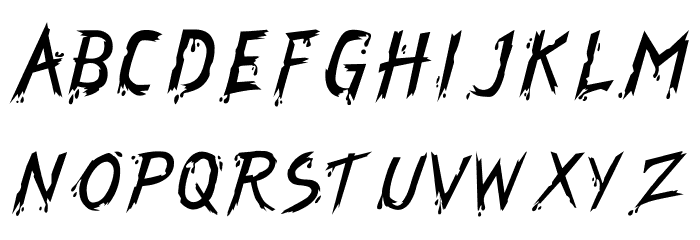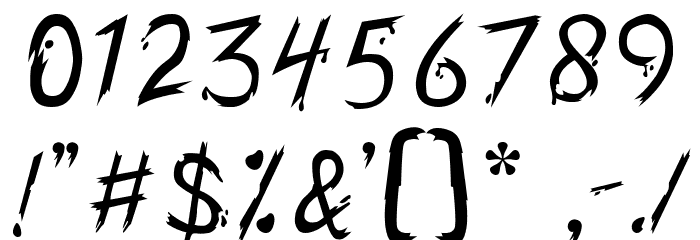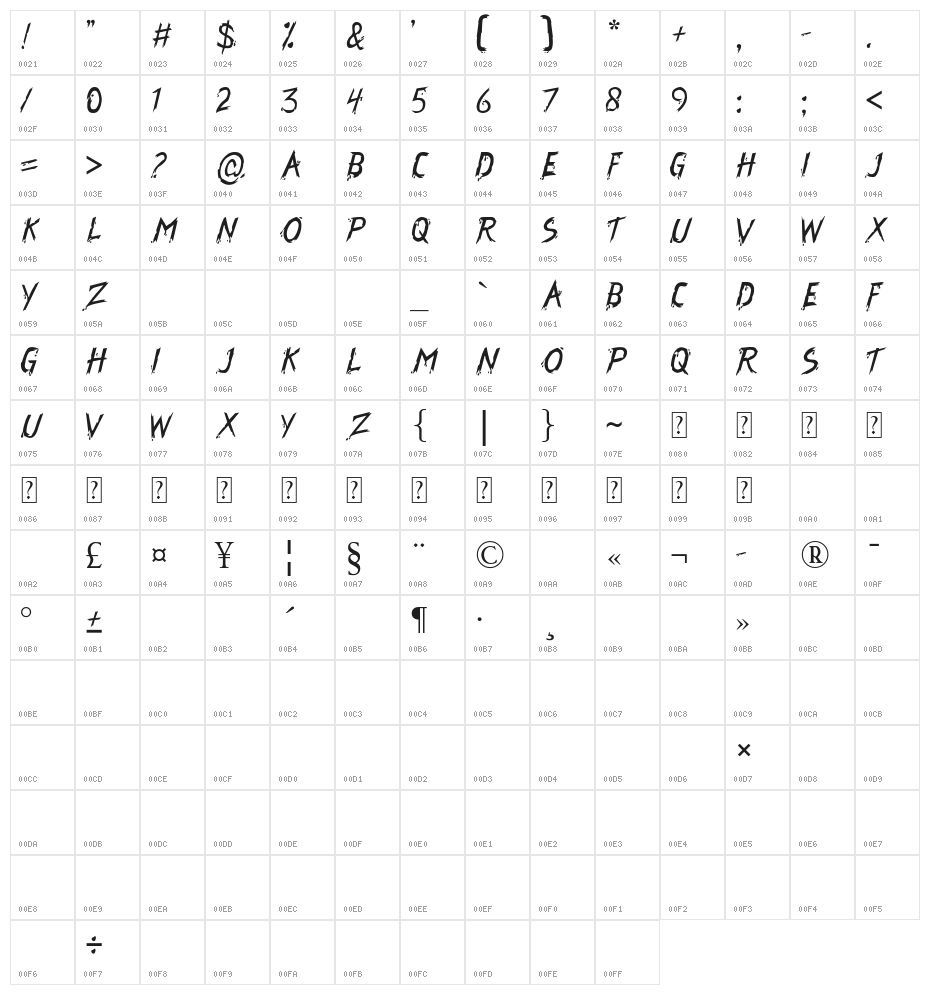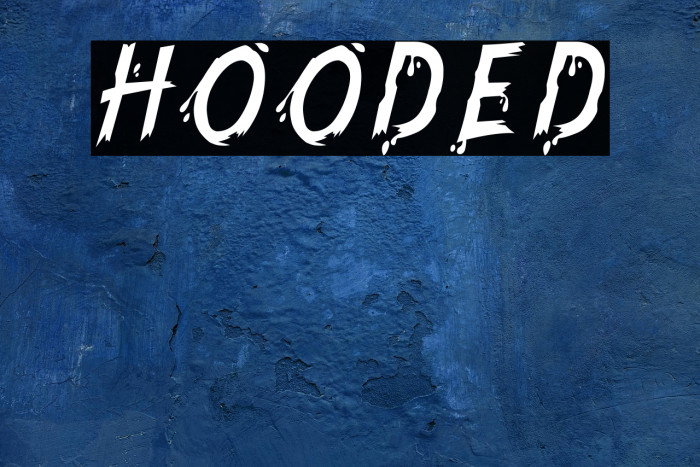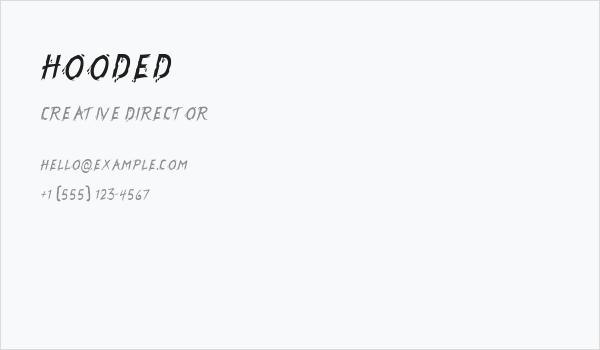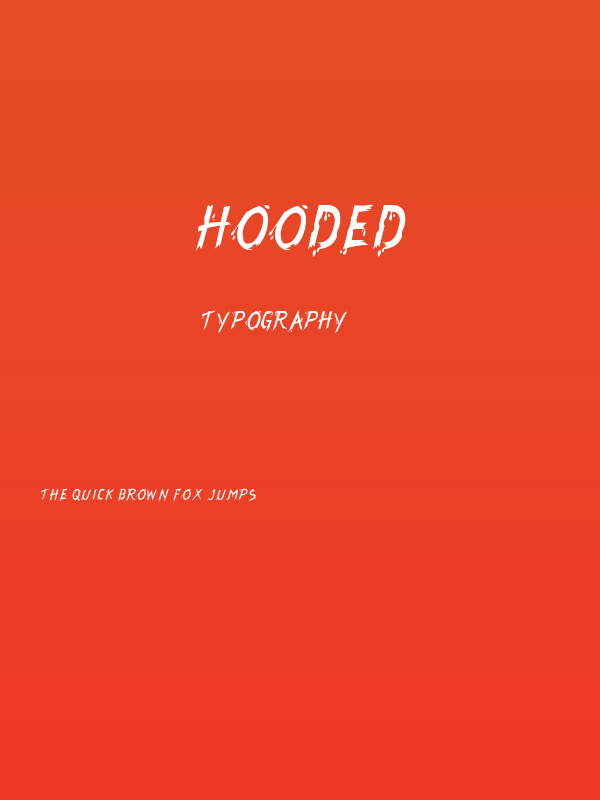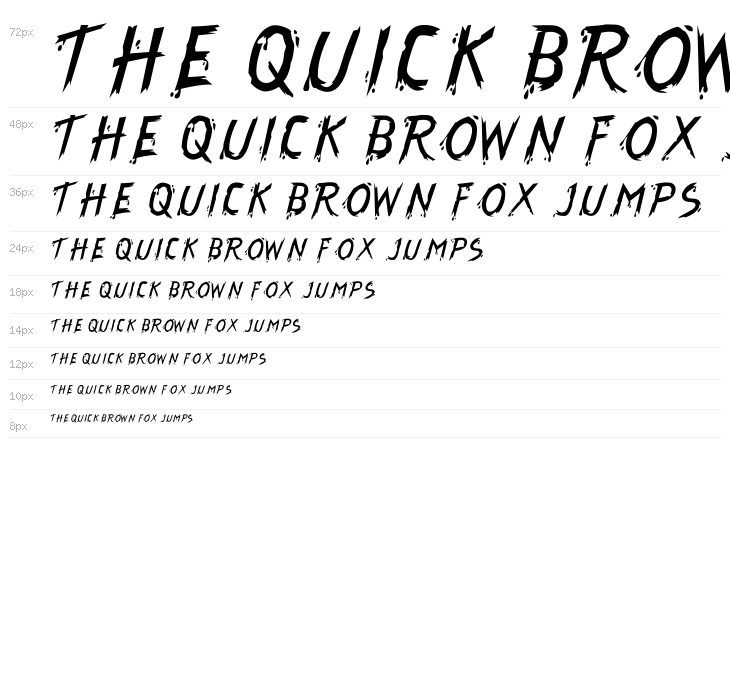
Hooded Font
This font features a dynamic and edgy design, characterized by sharp, angular strokes and a slightly distressed appearance. The letters have a unique, hand-drawn quality with irregular edges that give them a raw, energetic feel. The uppercase and lowercase letters maintain a consistent style, with the uppercase being slightly more pronounced. Numbers and special characters follow the same aesthetic, ensuring a cohesive look across all text. This font's bold and striking appearance makes it stand out, ideal for projects that require a strong visual impact.
A bold, edgy font with sharp, angular strokes and a distressed look.
- Proposed Projects: Ideal for horror-themed designs, edgy branding, album covers, and poster art.
- Overall Style: Modern, Decorative